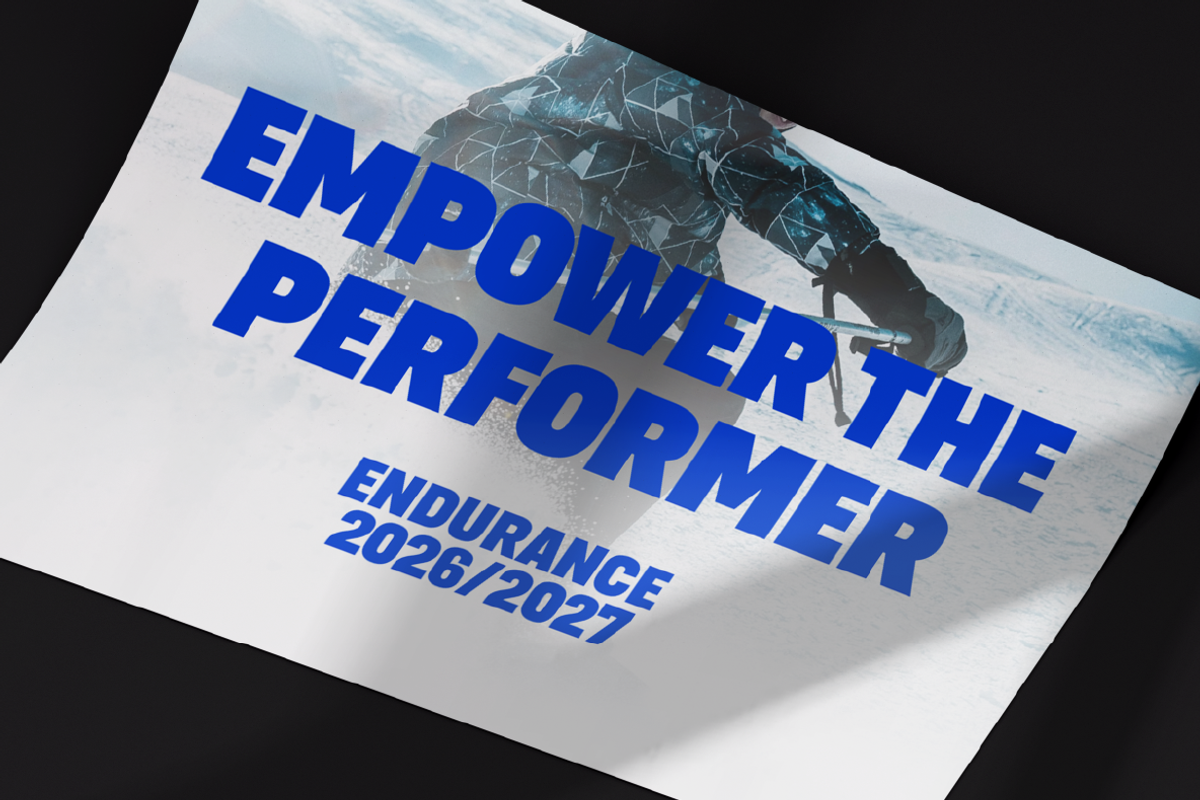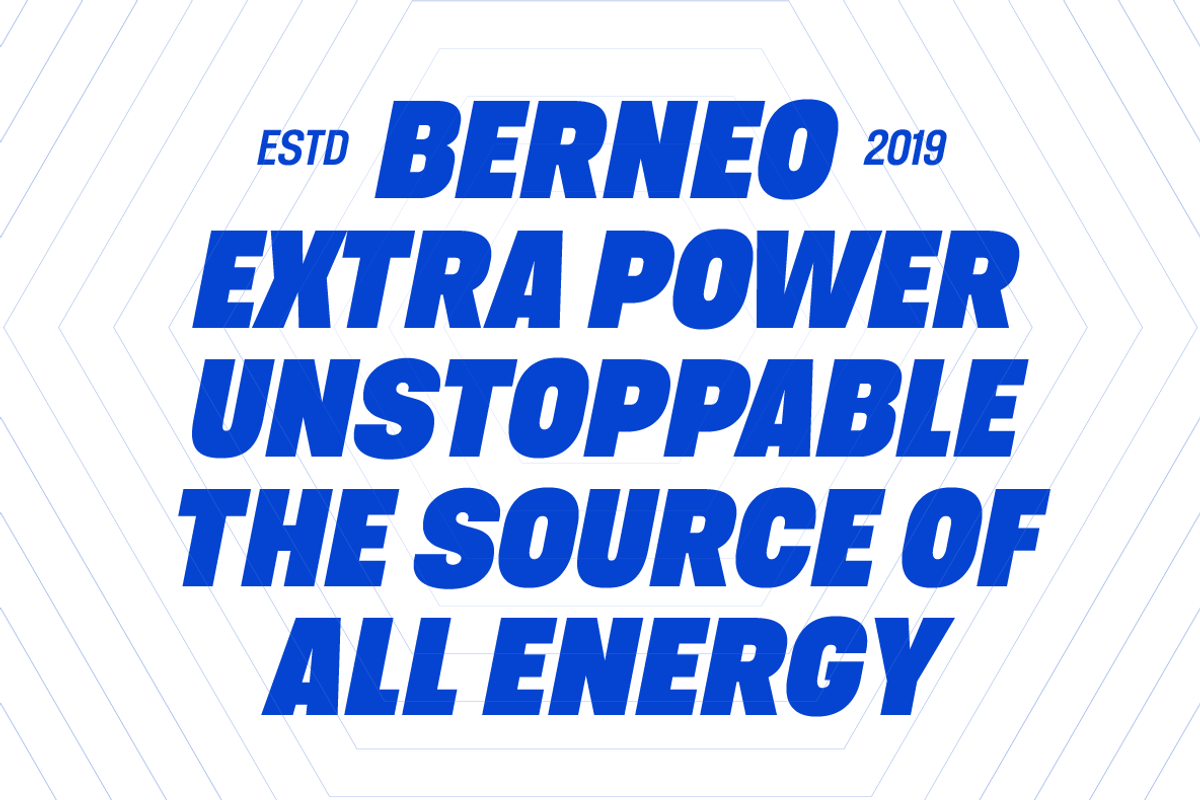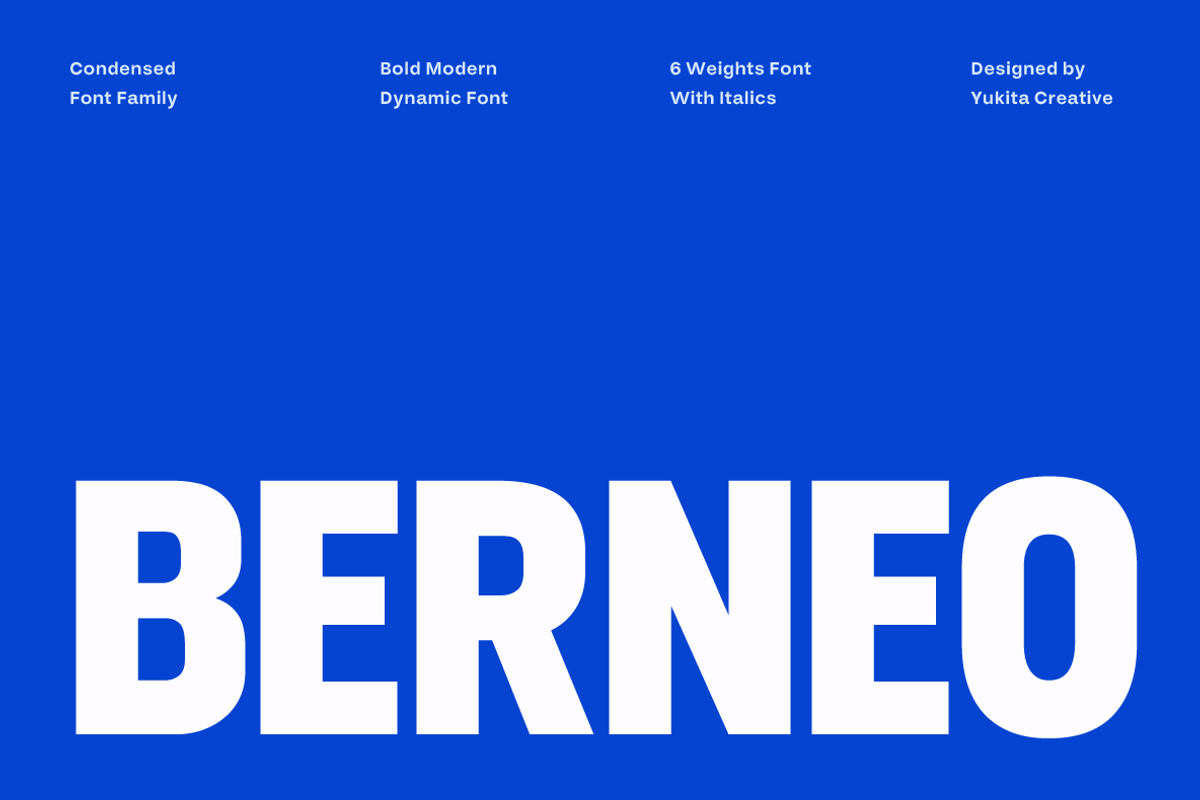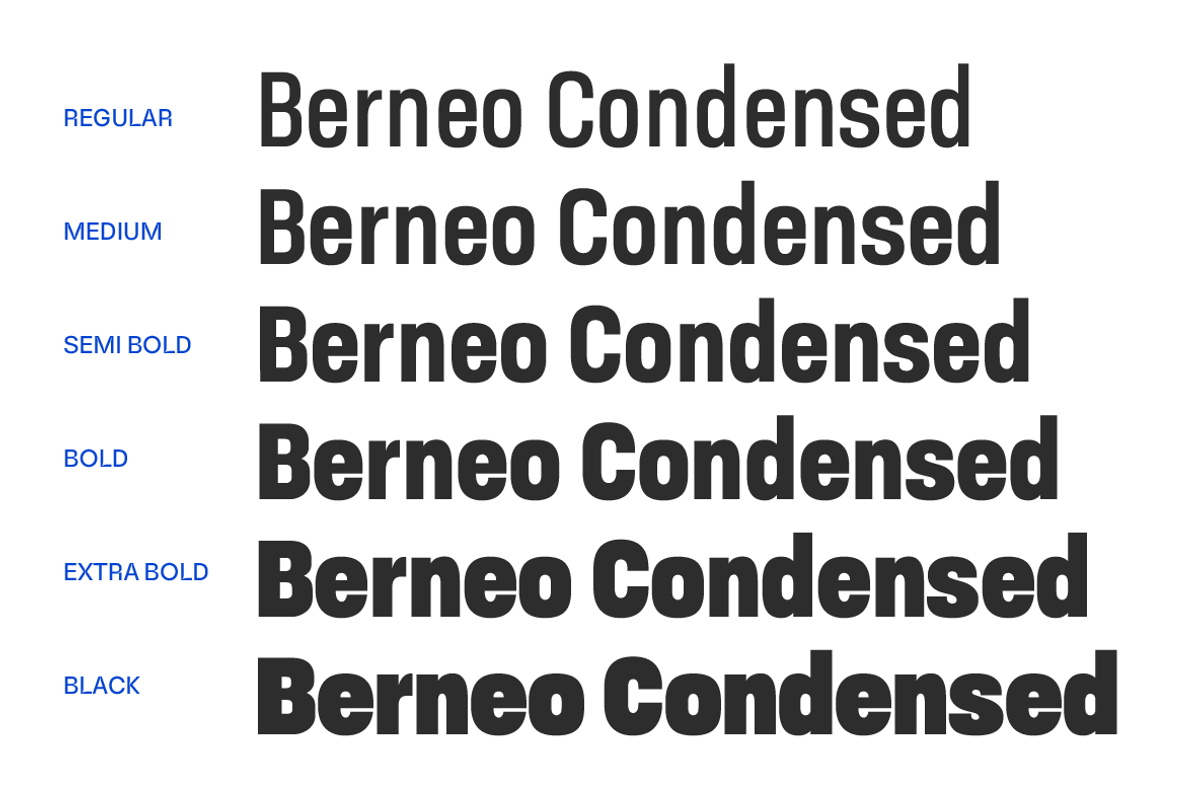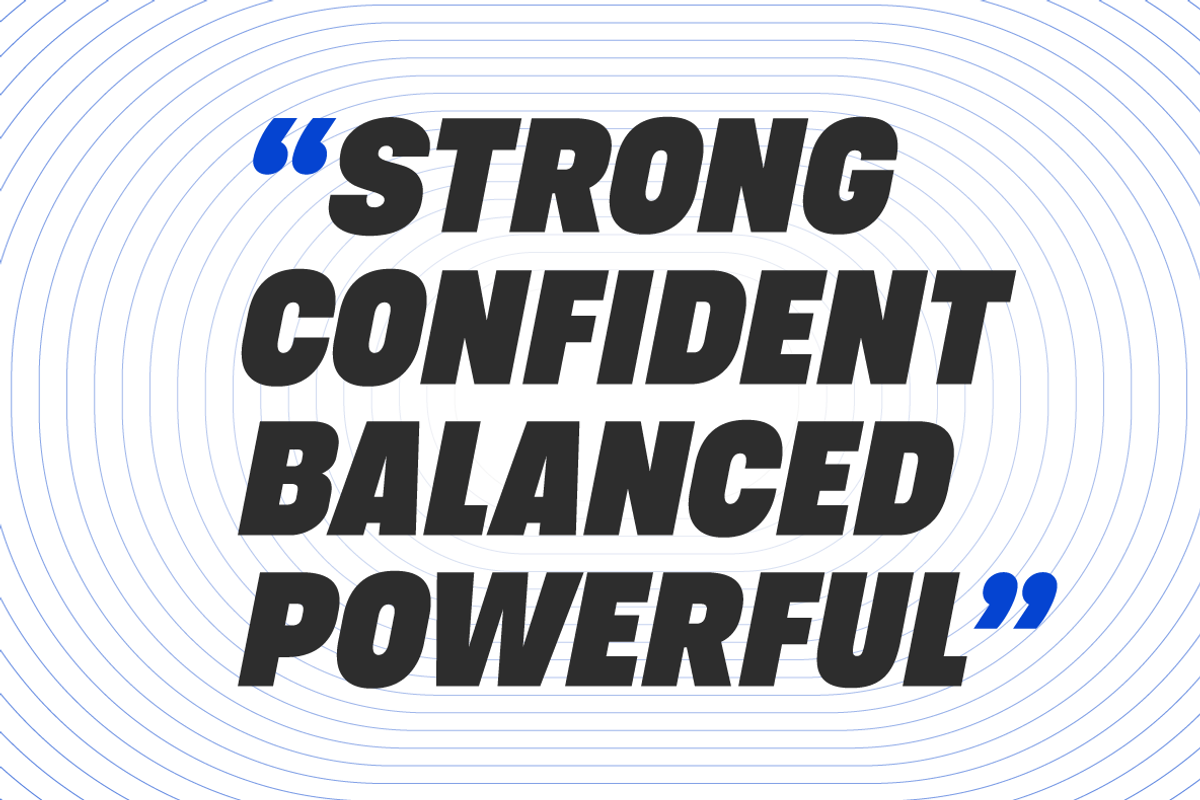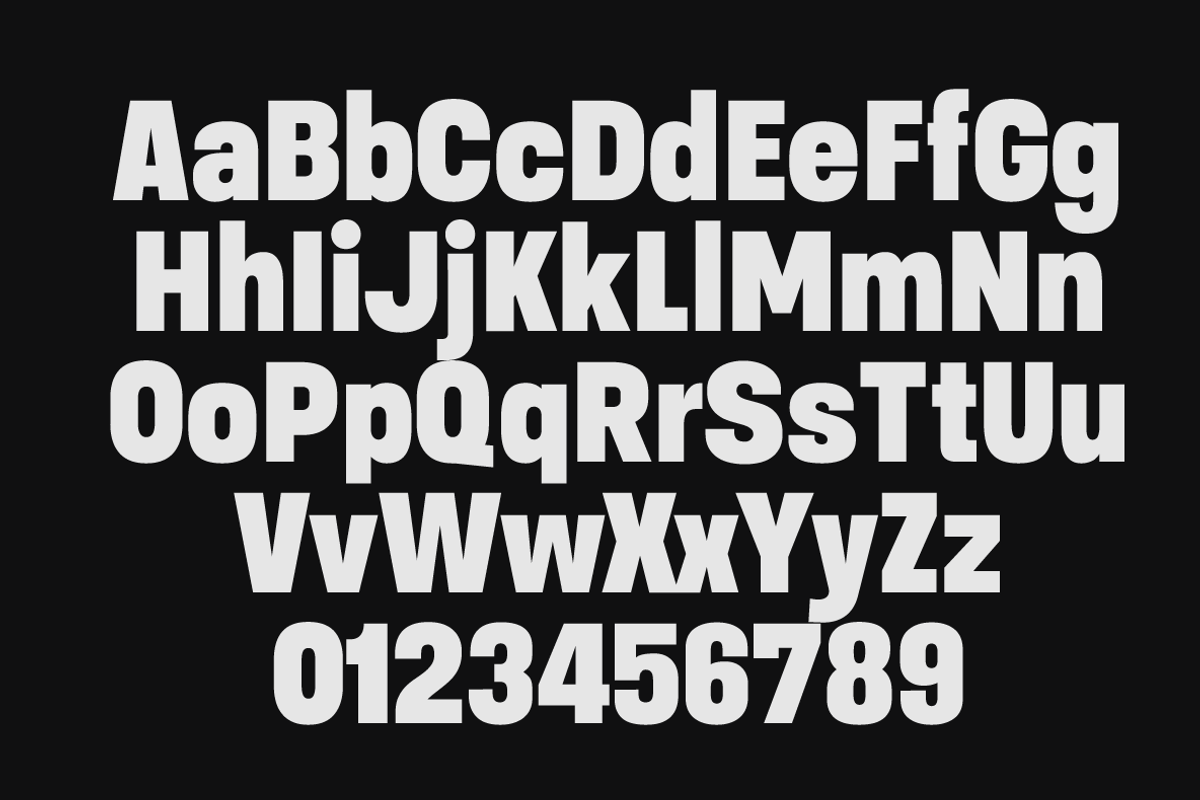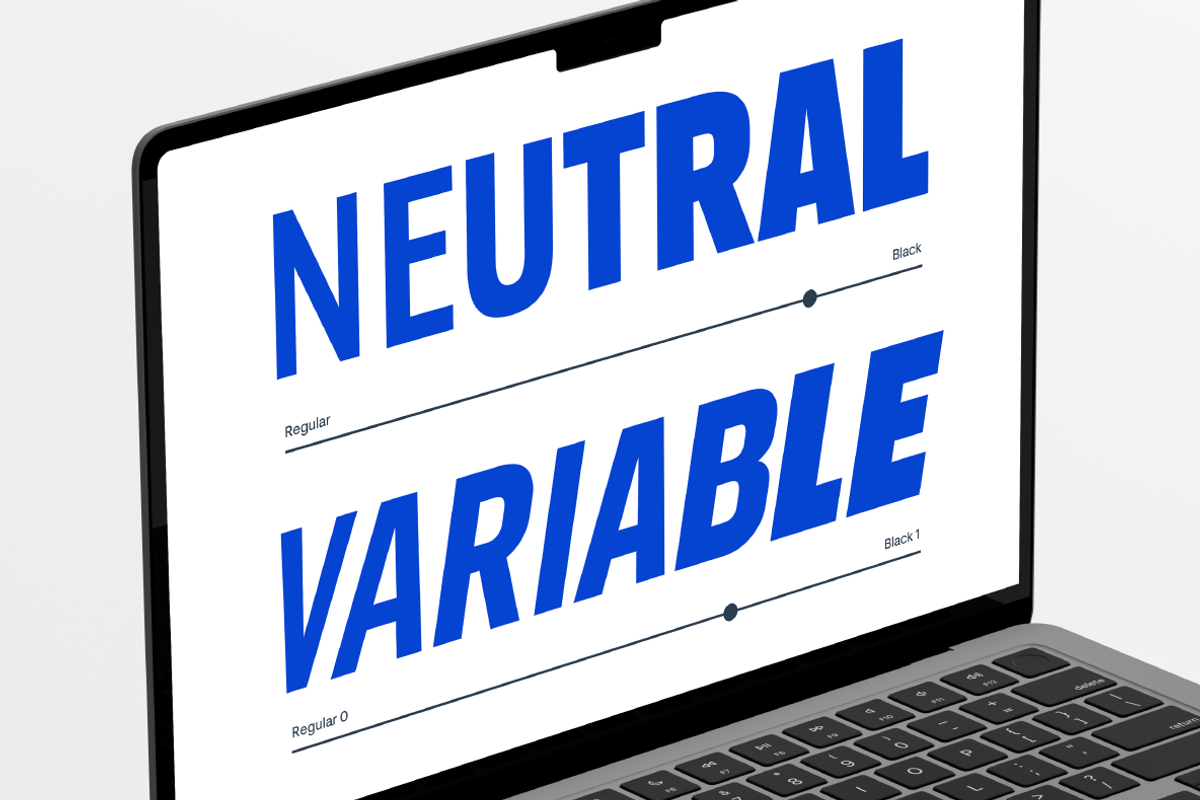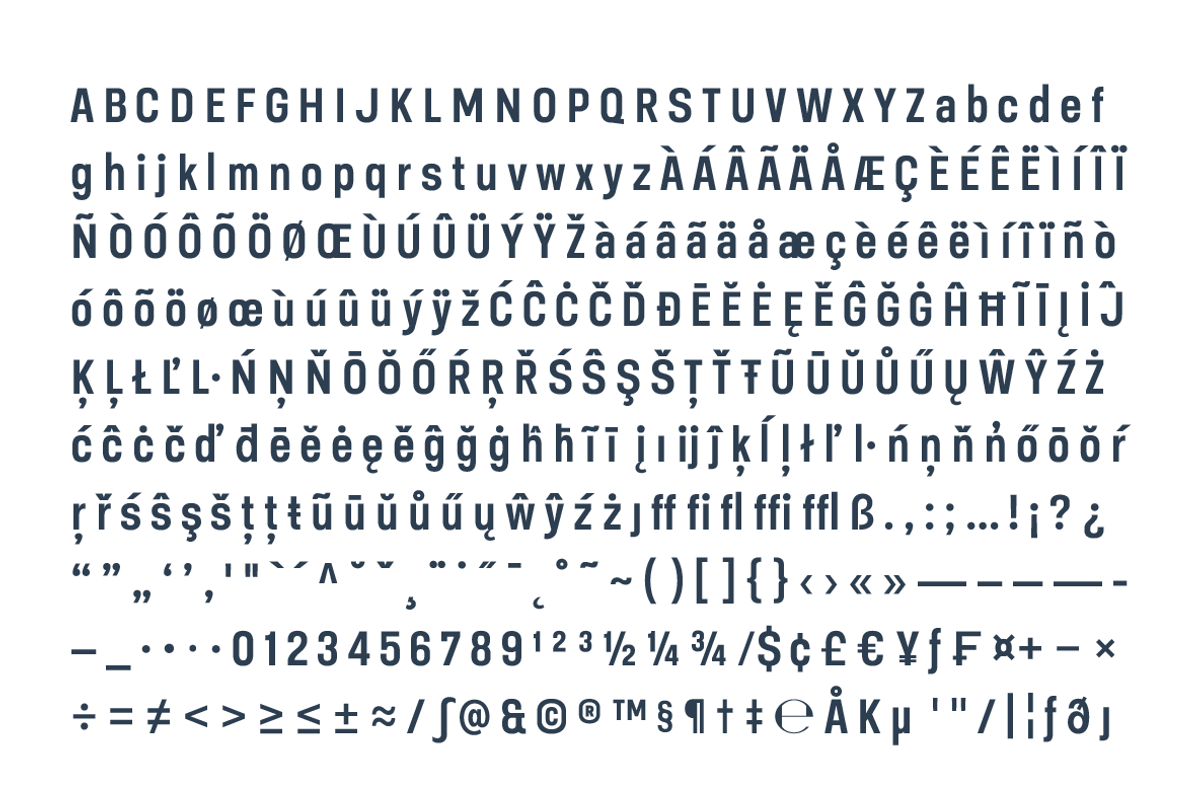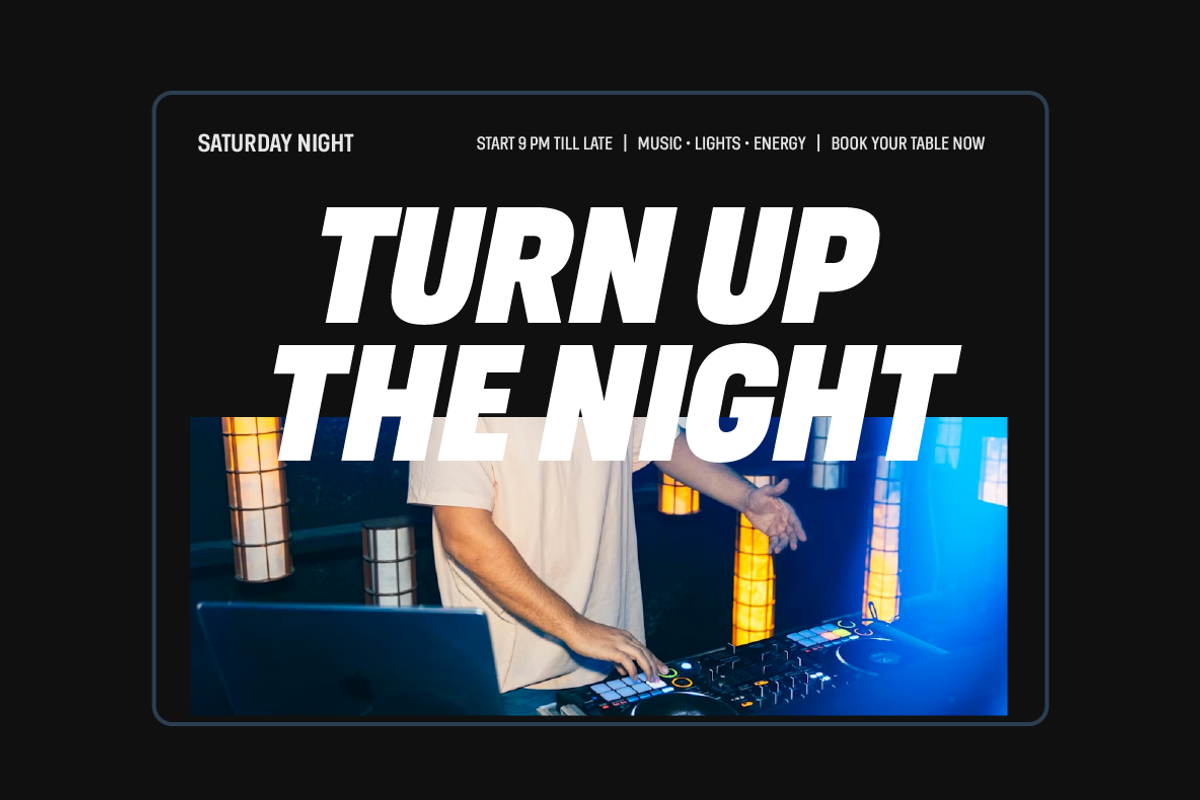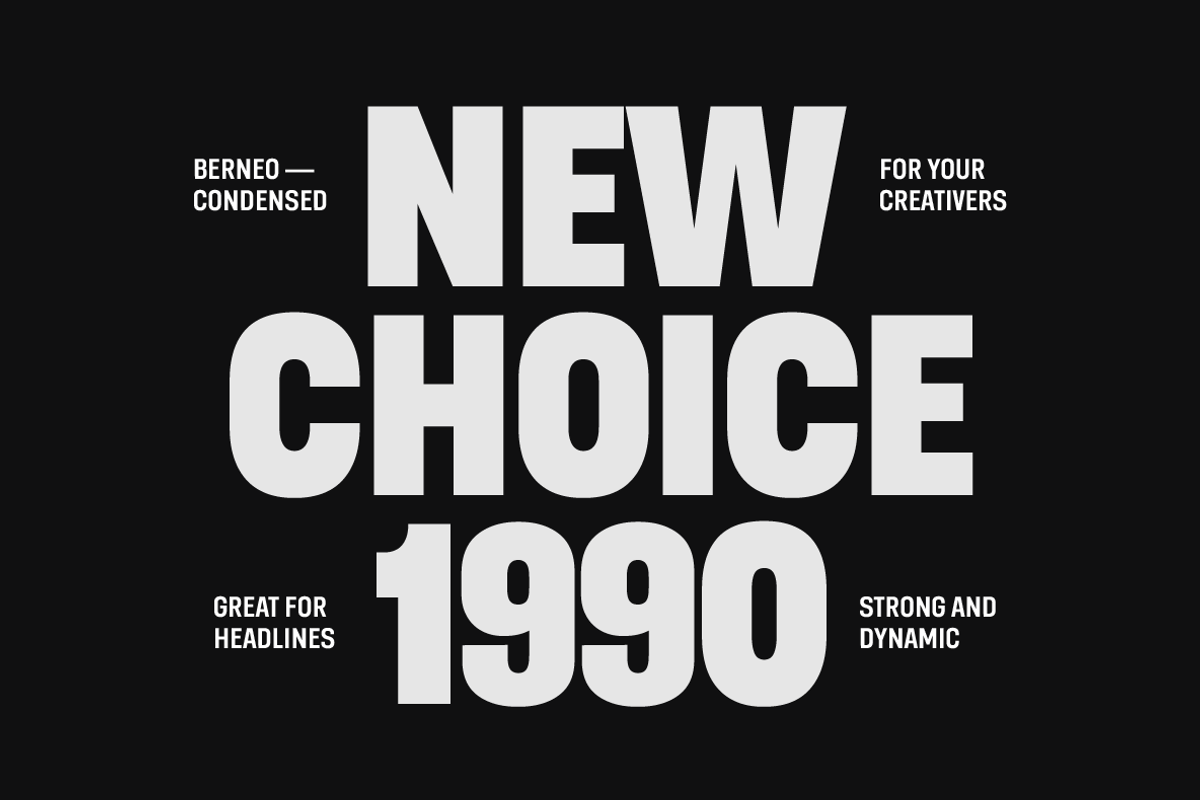
Berneo – Modern Condensed Font
Berneo is a modern condensed font family designed to create strong visual impact with a bold and dynamic presence. Featuring tall and compact letterforms, this typeface is perfect for designs that need to stand out with clarity and confidence.
Built for high-energy and attention-grabbing projects, Berneo works exceptionally well for sports branding, music visuals, advertising campaigns, and bold editorial layouts. Its clean and assertive style ensures excellent readability while maintaining a powerful and modern aesthetic.
With multiple weights and matching italics, Berneo provides the flexibility to create consistent and striking typography across a wide range of creative applications, from logos to large-scale headlines.
Perfect for Sports design, music artwork, advertising, branding, logo design, posters, headlines, editorial layouts, and modern promotional graphics.
Modern condensed font family
Bold, strong, and dynamic letterforms
High-impact style for headlines and branding
Ideal for sports, music, and advertising projects
Clean and highly readable design
6 weights from Regular to Black with matching italics
Consistent and versatile for multiple design needs